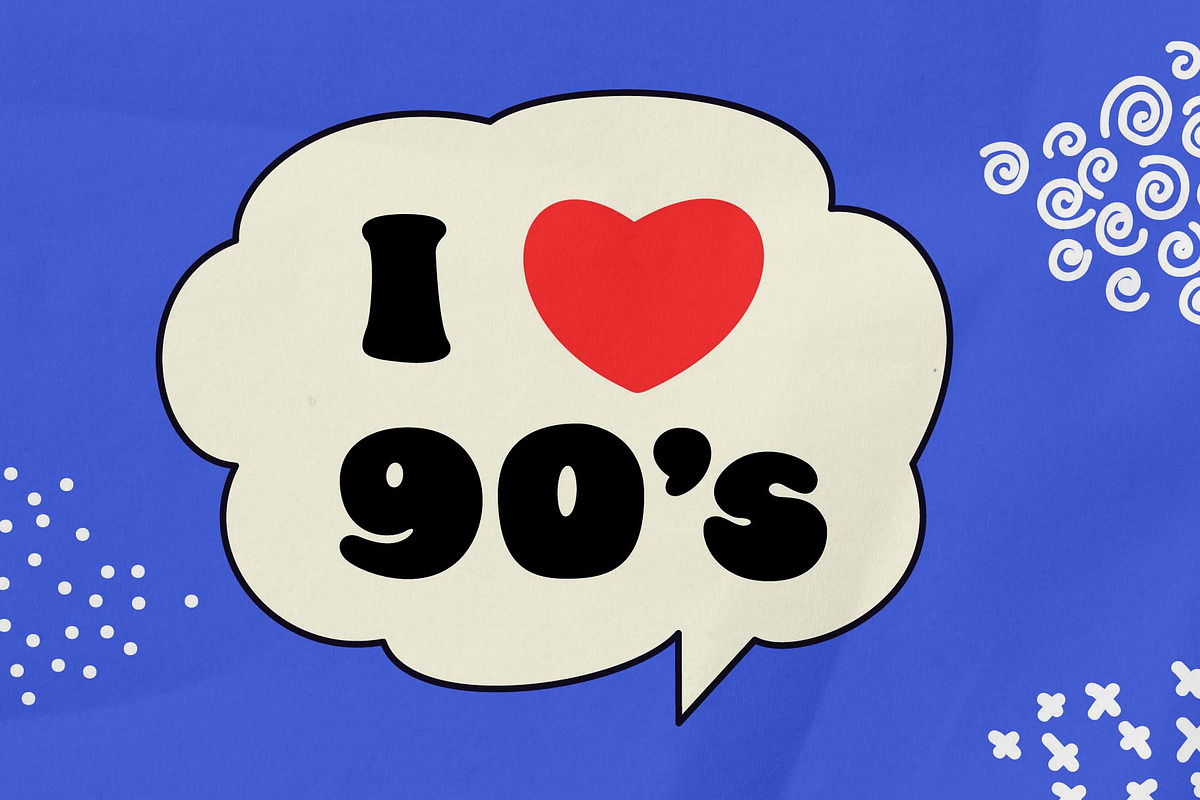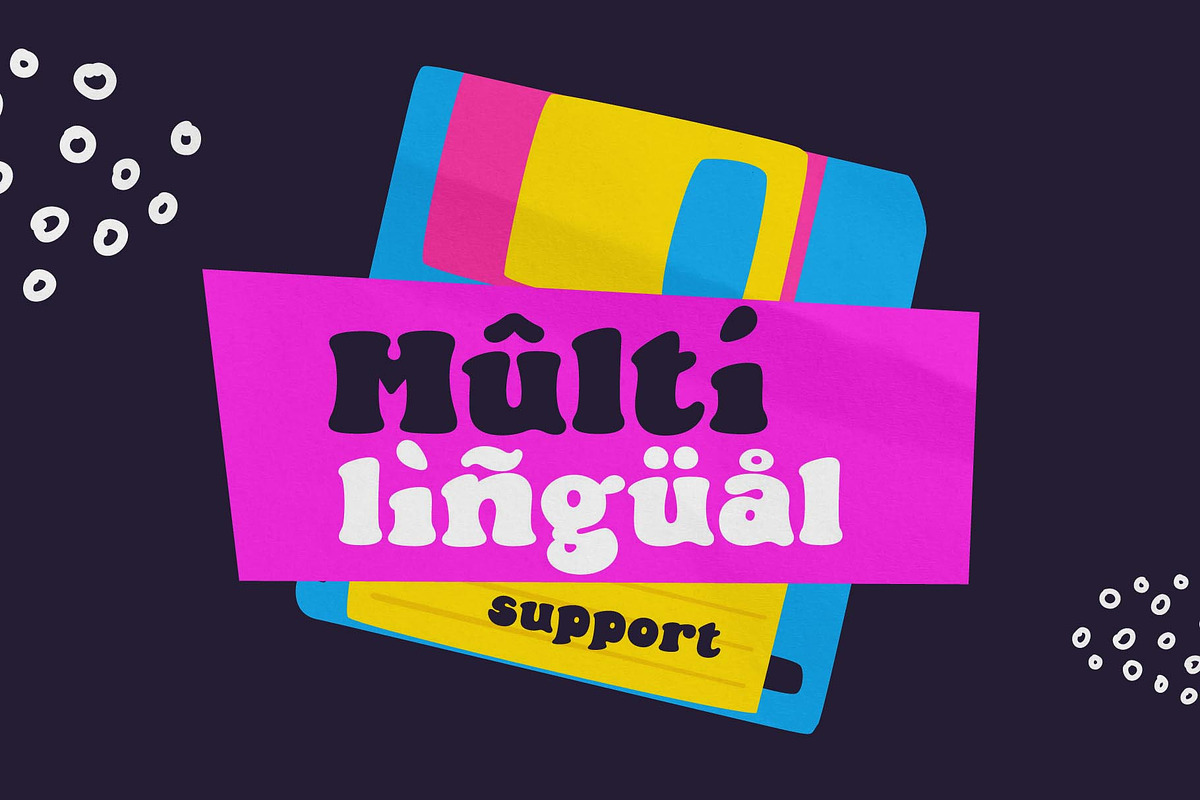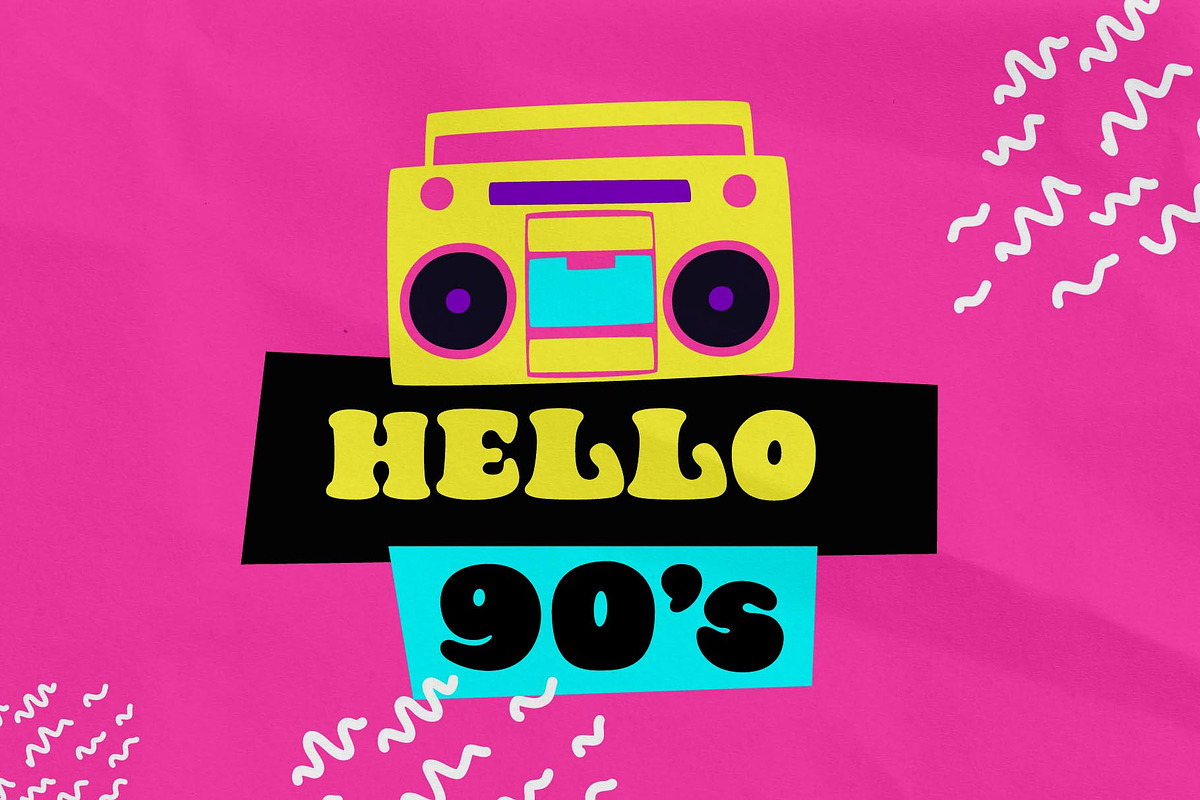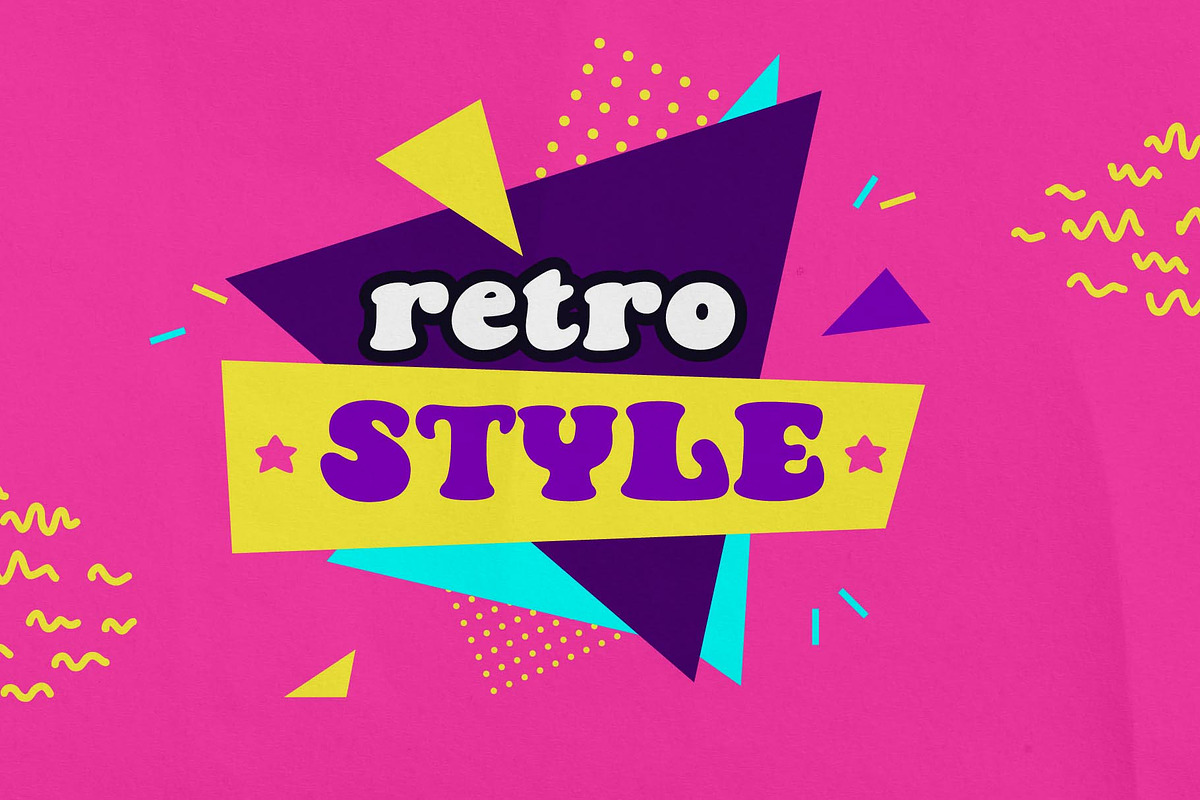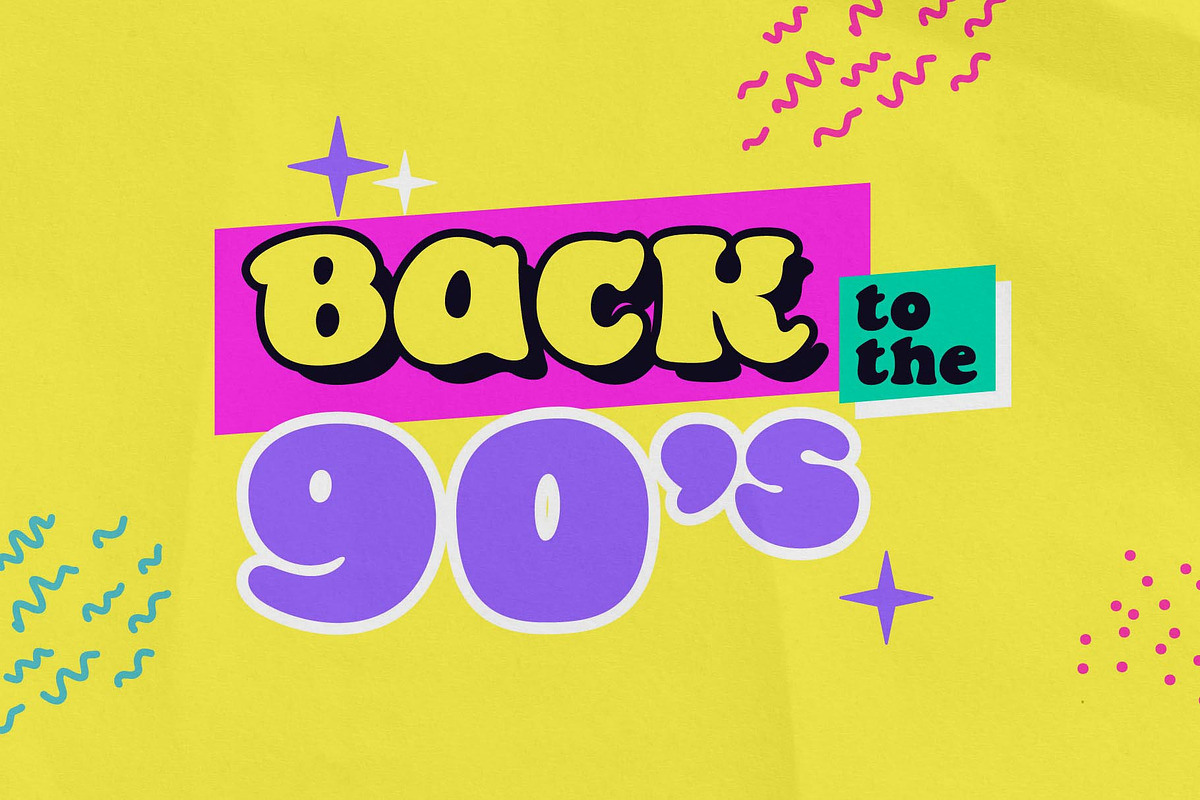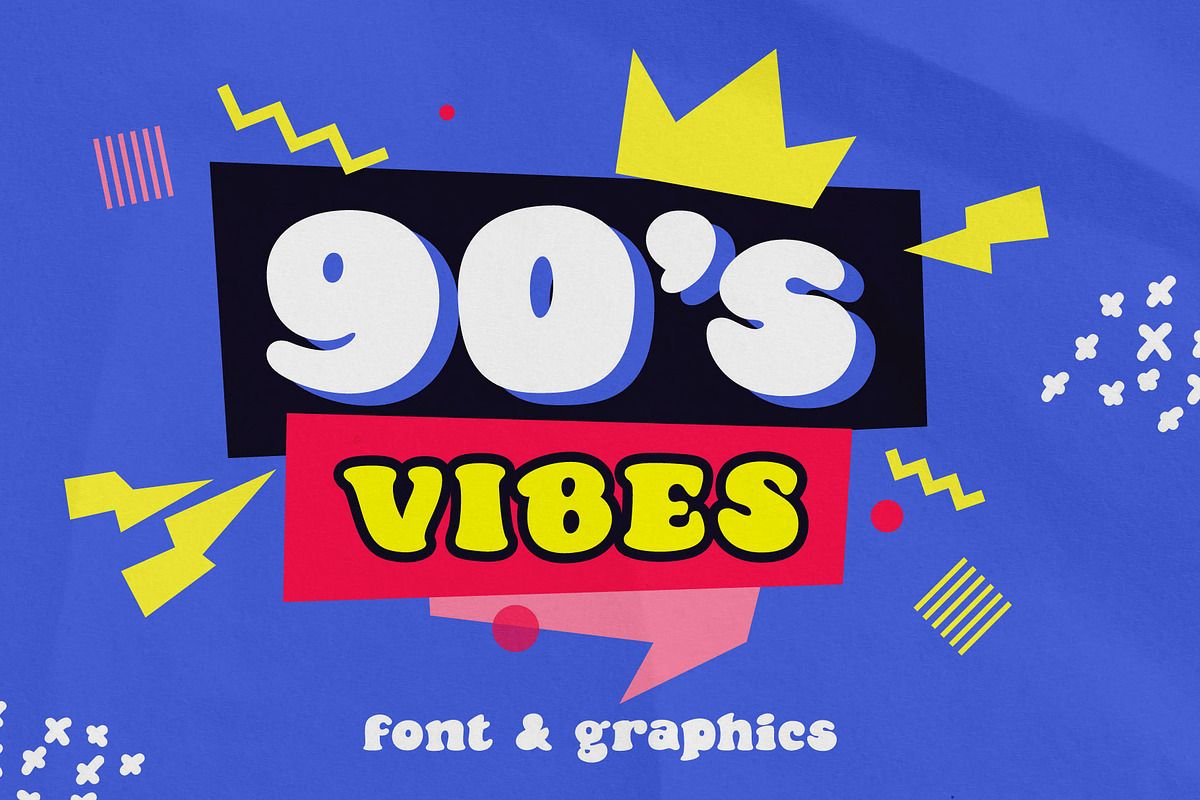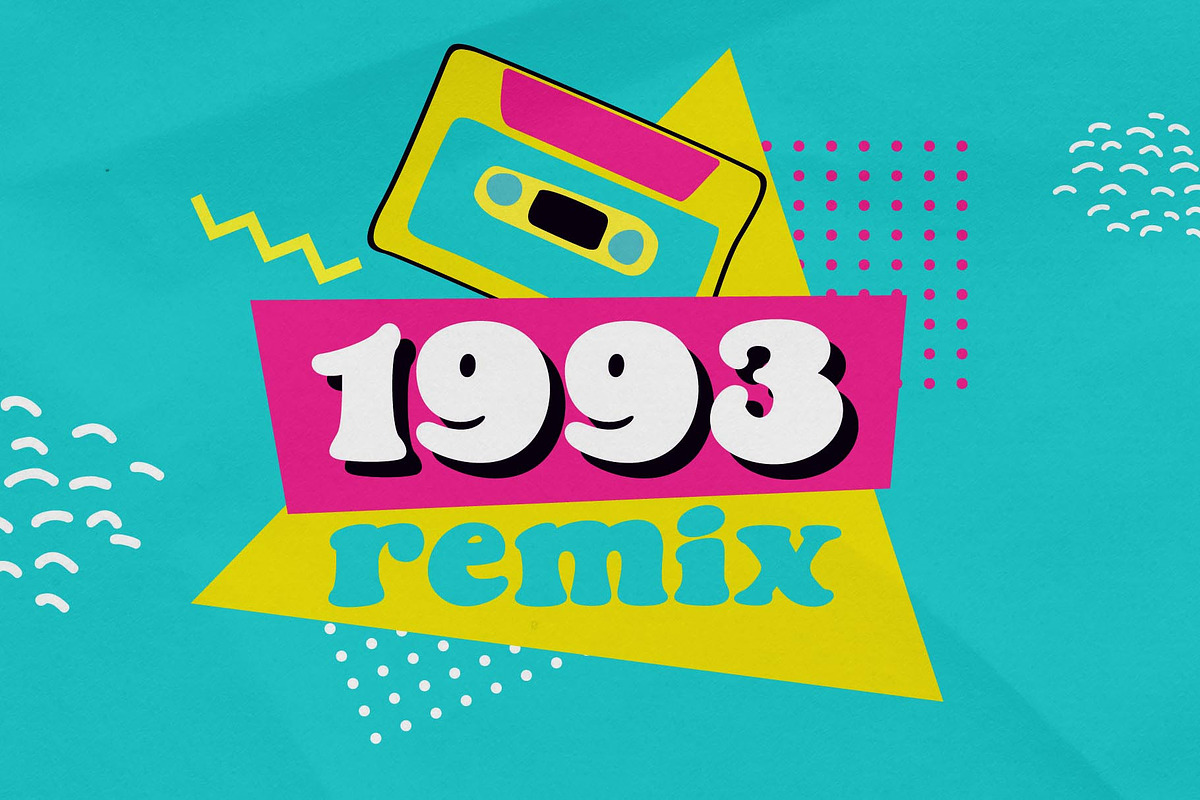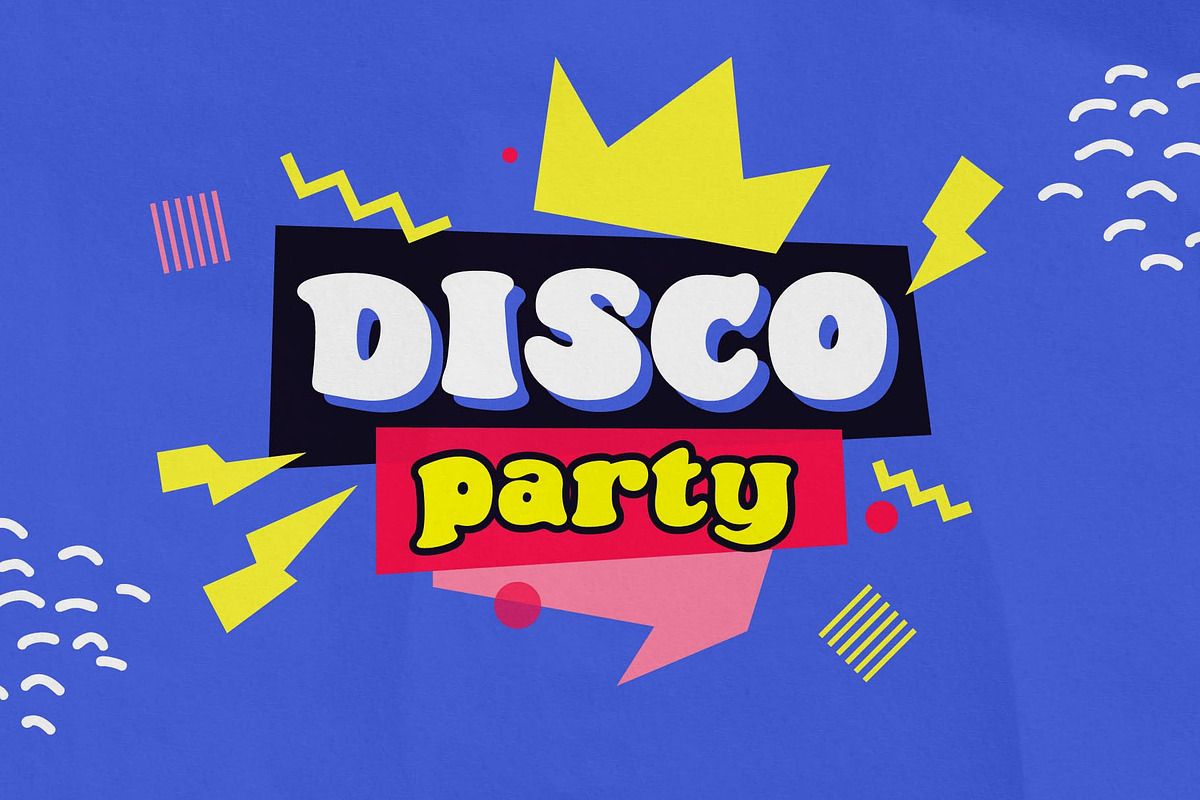
Nineties Vibes font & graphics
What was in fashion long ago will be in fashion again! Nineties Vibes font is inspired by the 90's graphics. I've also prepared pattern spots and some graphics for your designs.